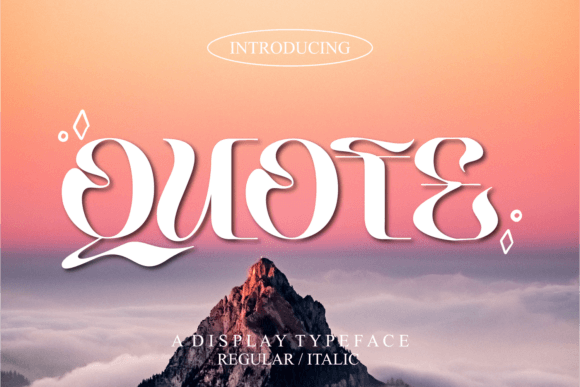
Welcome to the realm of Quote Font, a captivating display font that weaves a spell of visual intrigue with its sinuous curves and energetic letterforms. Step into a world where words take on a life of their own, dancing across the screen with a rhythm and flair that captivates and enchants.
Quote Font is not just a font; it's a gateway to express your individuality and unleash your creative prowess. Its dynamic design breathes life into your words, transforming them into vibrant, eye-catching statements that leave an indelible mark on your audience. Whether you're crafting stunning quotes, captivating headlines, or injecting personality into your branding projects, Quote Font emerges as the perfect partner for your artistic endeavors.
As you delve into the depths of Quote Font's character set, you'll discover a treasure trove of glyphs and ligatures, waiting to be unleashed. With PUA encoding, accessing these typographic gems becomes a seamless endeavor, allowing you to weave intricate designs and infuse your text with a touch of elegance and sophistication.
With Quote Font at your fingertips, you'll find yourself immersed in a world of boundless creativity. Its playful curves and dynamic design ignite a sense of movement and energy, making your words burst off the screen and dance before the eyes of your captivated audience. Whether you're a seasoned designer seeking to elevate your projects or a budding creative yearning to leave your mark on the world, Quote Font becomes your steadfast companion, guiding you toward typographic excellence.
So embark on this extraordinary journey with Quote Font, a font that transforms the ordinary into the extraordinary. Its captivating letterforms and dynamic design will leave you breathless, while its ease of use and versatility will empower you to create masterpieces that captivate and inspire. Embrace the allure of Quote Font and watch your words come alive, leaving an unforgettable impression on all who encounter them.